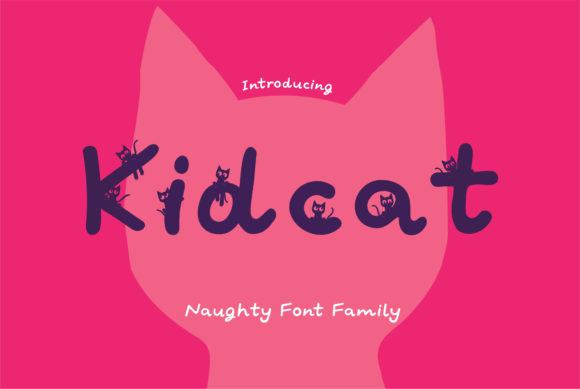
Prepare to be captivated by Kidcat, an enchanting decorative font that's purrfect for any feline fan!
This charming creation by Fontana Studio is a true masterpiece, lovingly designed to bring joy to cat enthusiasts worldwide. Its playful curves and enchanting details will add a touch of whimsy to your designs, making them truly stand out from the crowd.
Whether you're creating heartfelt family name signs or designing adorable greeting cards, Kidcat's versatility and boundless charm will leave you purring with satisfaction. Its delightful strokes evoke the playful spirit of our beloved furry friends, adding a touch of warmth and joy to every project.
Imagine transforming your living space into a feline paradise with custom-crafted artwork featuring Kidcat's whimsical characters. Or, create personalized gifts for your cat-loving friends that will cherish forever. The possibilities are endless, and the results are always enchanting.